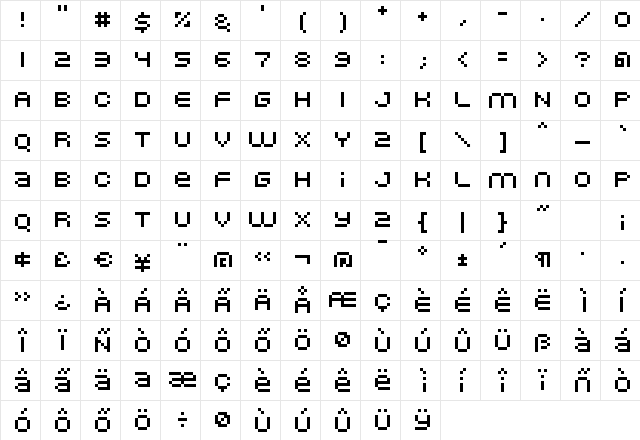
Nominal5 Regular Font Preview
Nominal5 Regular
Design Context for Nominal5 Typeface
Nominal5 takes a measured approach to typography — its balanced proportions and neutral character make it a reliable workhorse for both digital and print work.